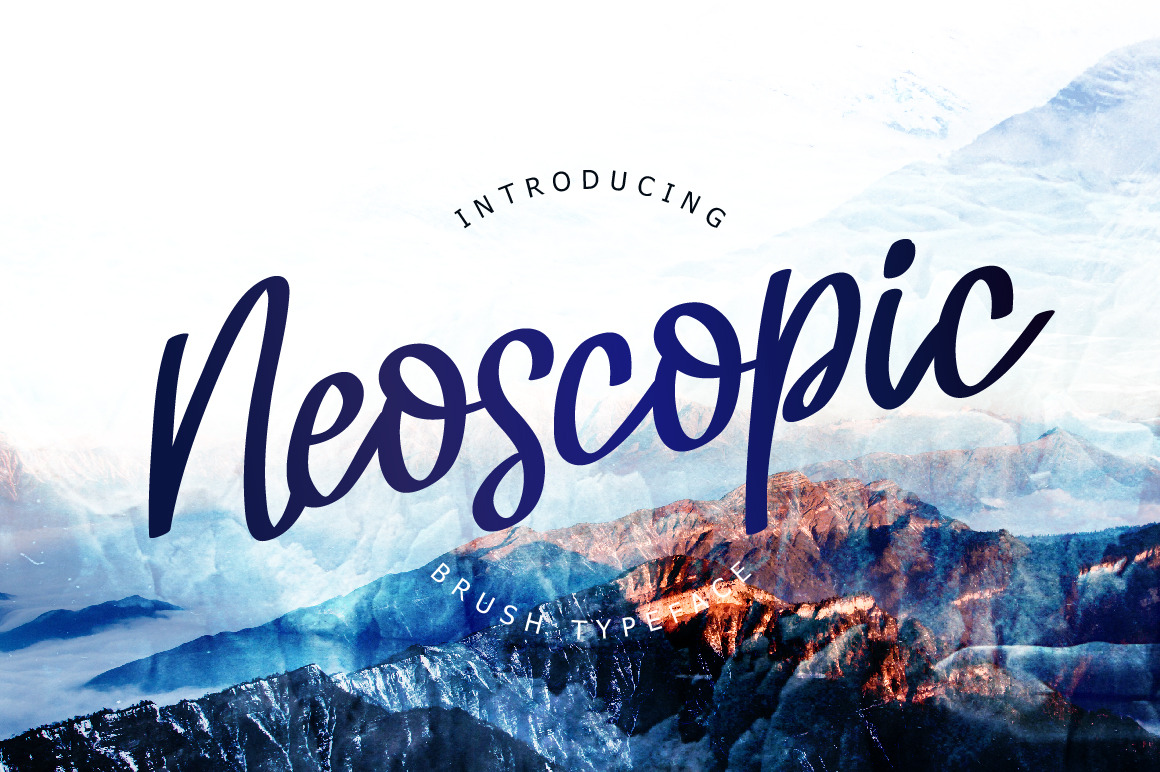
Neoscopic Brush Typeface
Introducing Neoscopic Brush Typeface
Ideal for handwritten quotes, logos, product packaging, t-shirt, header, poster, nature photography and applicable for any graphic design.
Neoscopic Brush Typeface comes with uppercase and lowercase characters, large set of punctuation glyphs, numerals and ligatures.